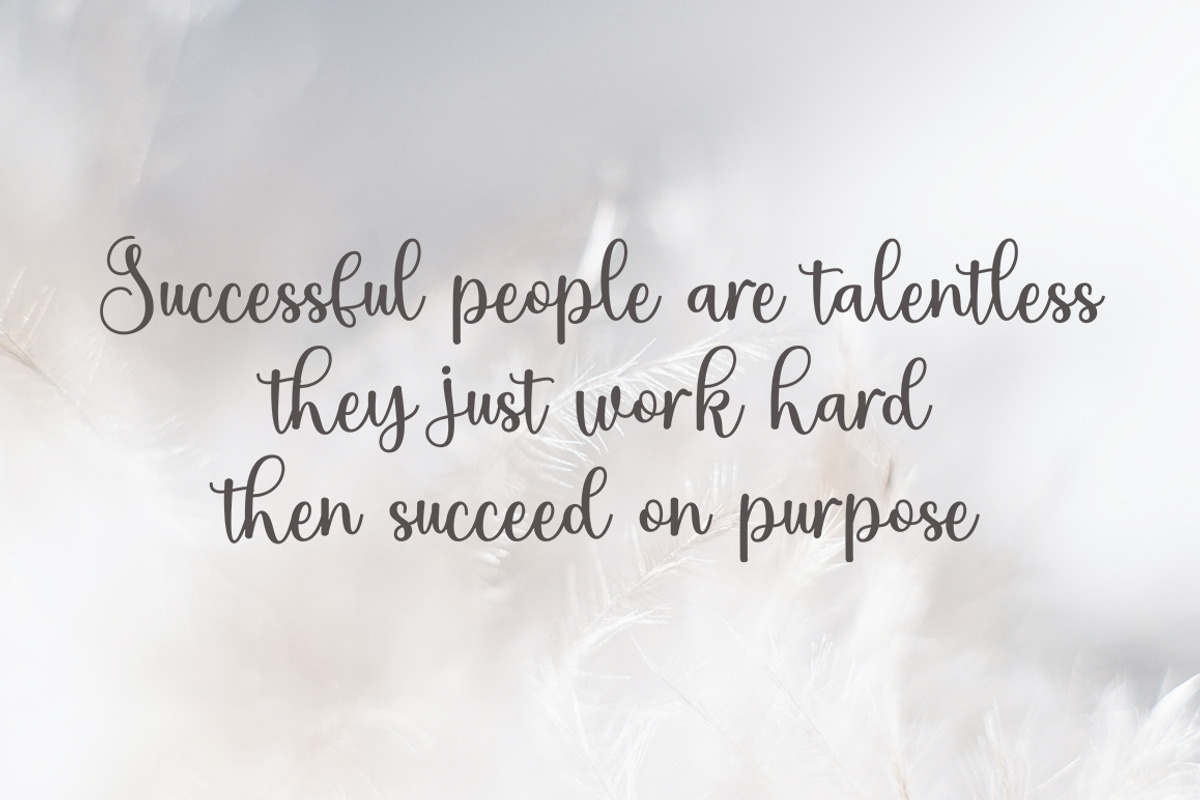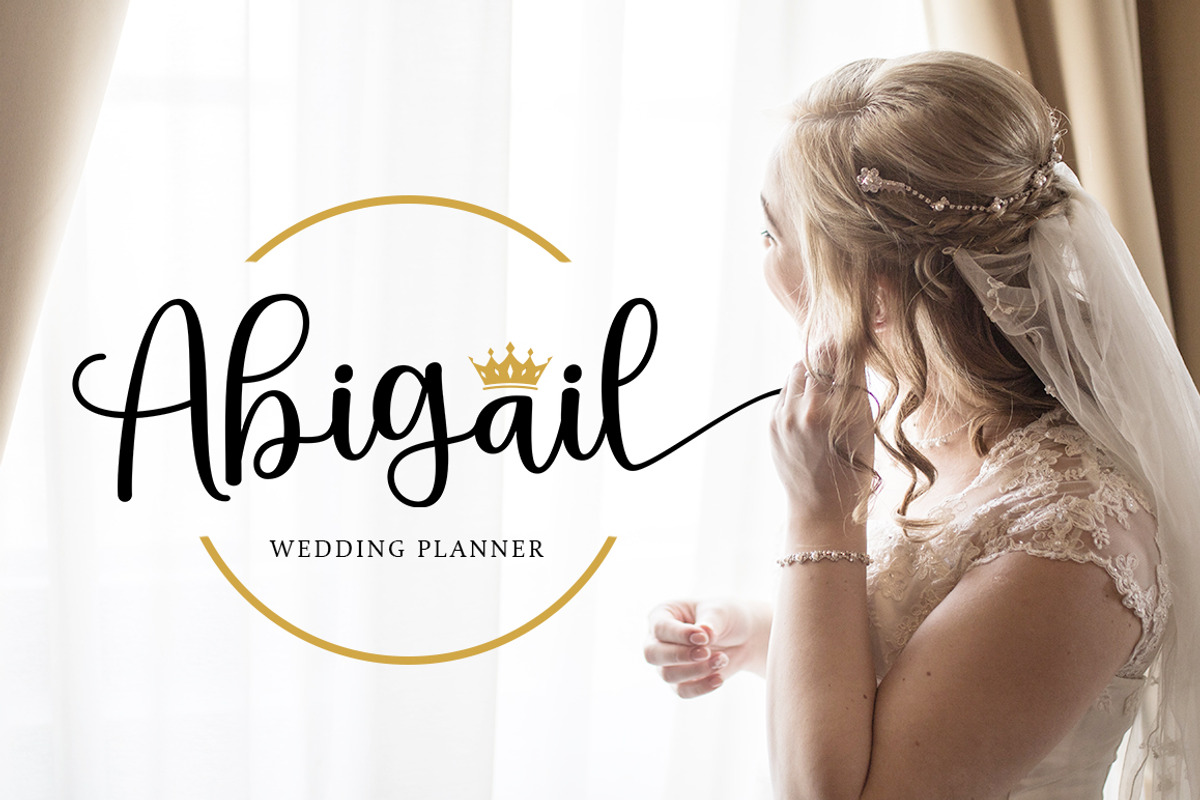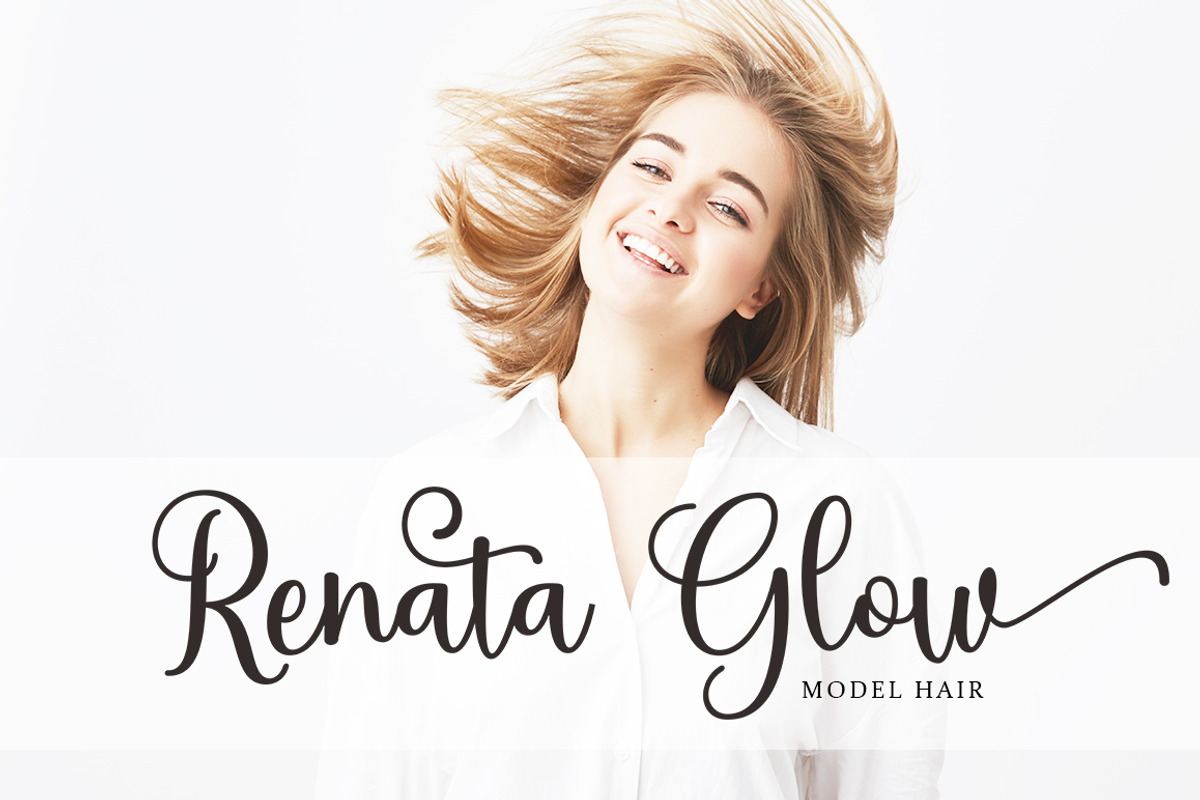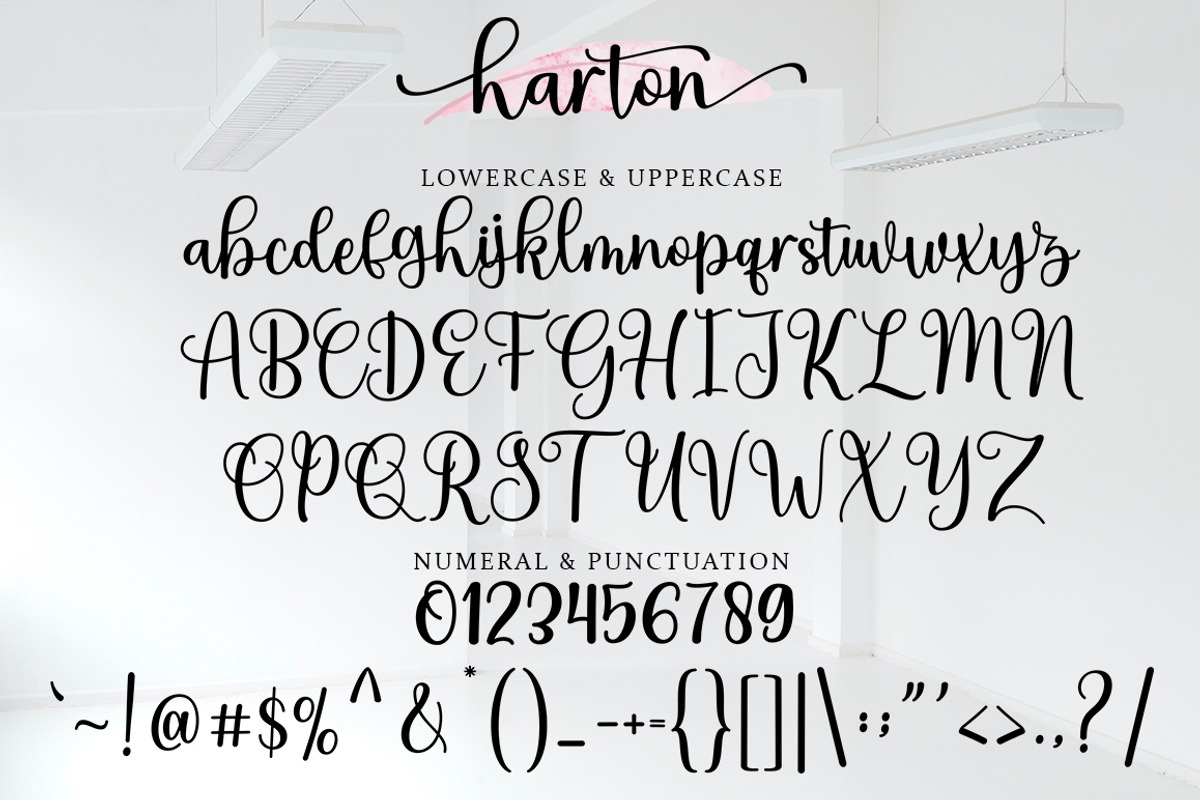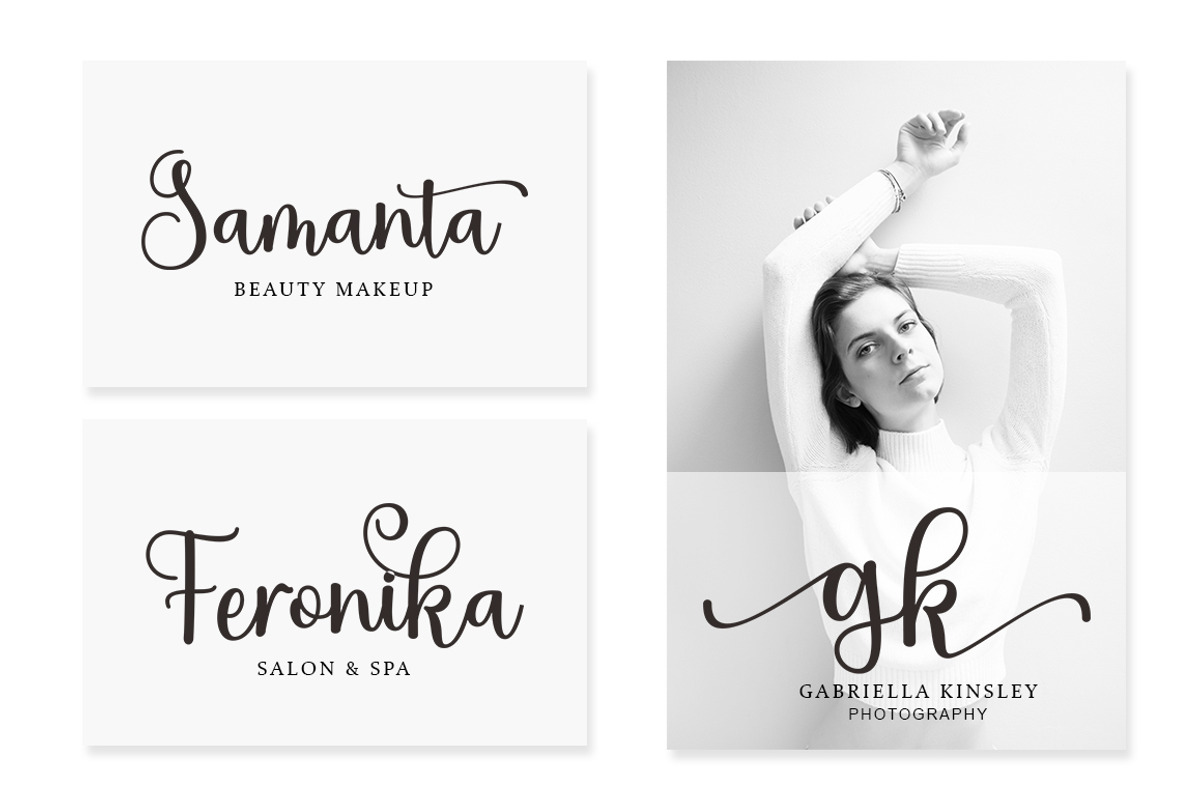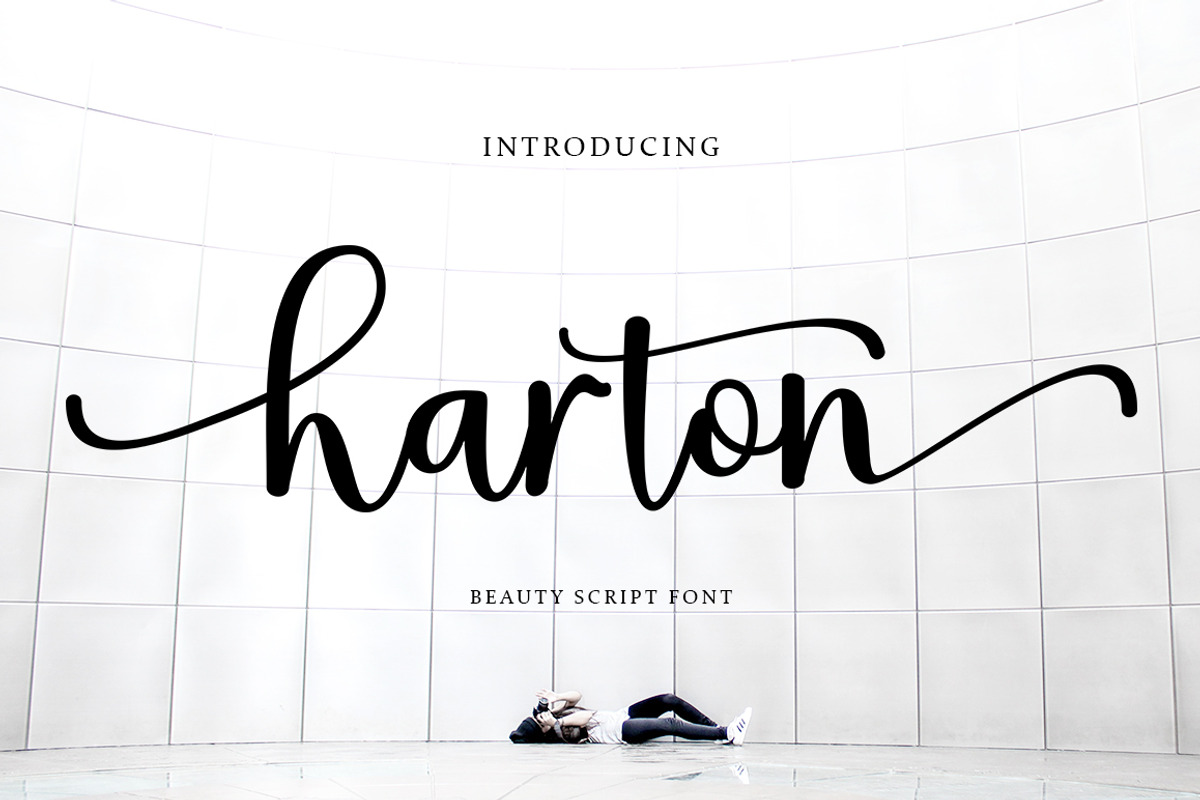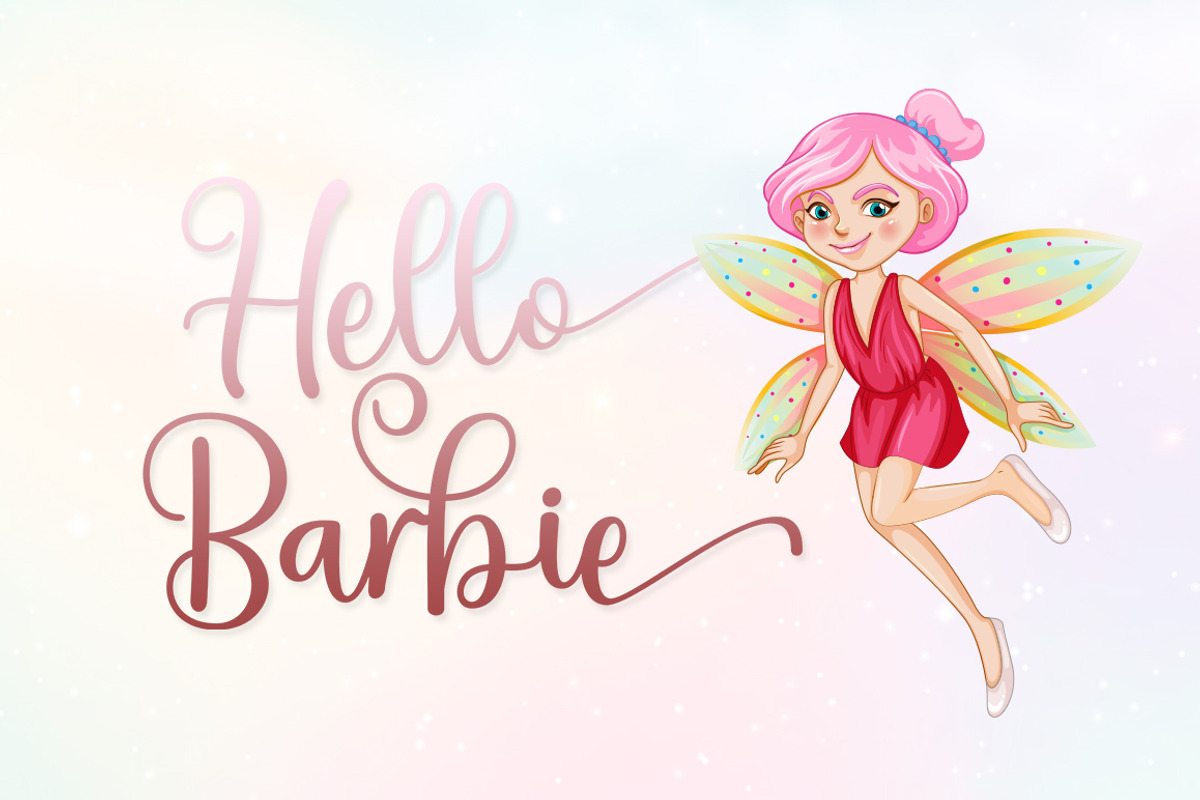
Harton Script
Harton is a stylish and very elegant handwritten font. It looks amazing on wedding invitations, thank you cards, quotes, greeting cards, logos, business cards and any other design that calls for a handwritten touch.